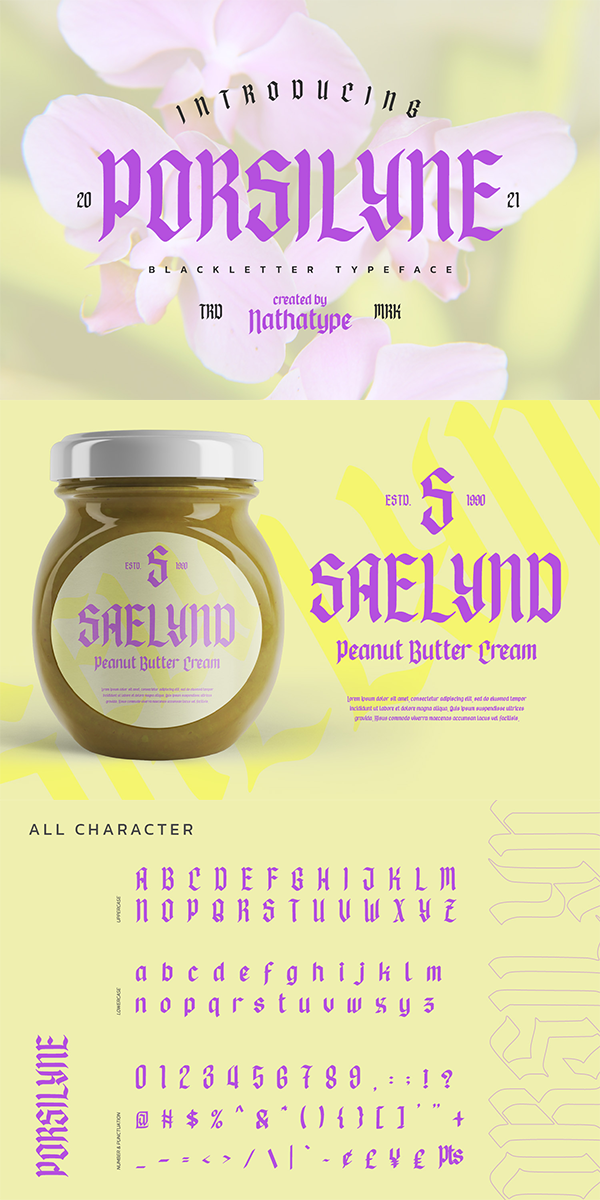
Porsilyne Font
About Porsilyne
Porsilyne-A Blackletter Font
Porsilyne is made to bring out a modern and stylish view of what you make. This typeface with artistic style looks very interesting for loads of different projects and promotions. A great all-in-one package for your logo, book cover, poster, t-shirt, branding, and advertisement needs.